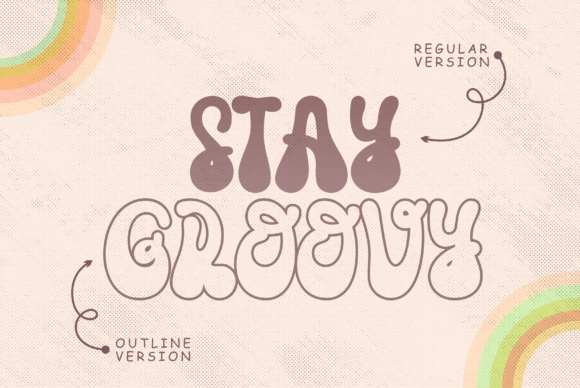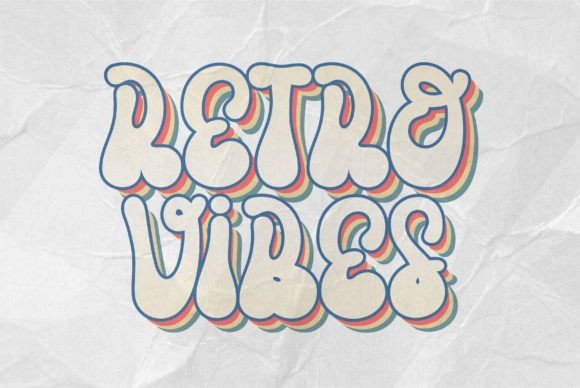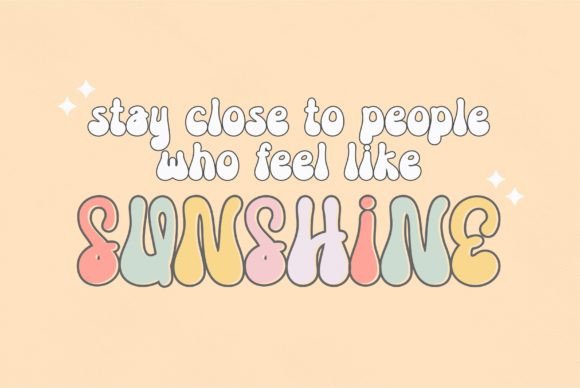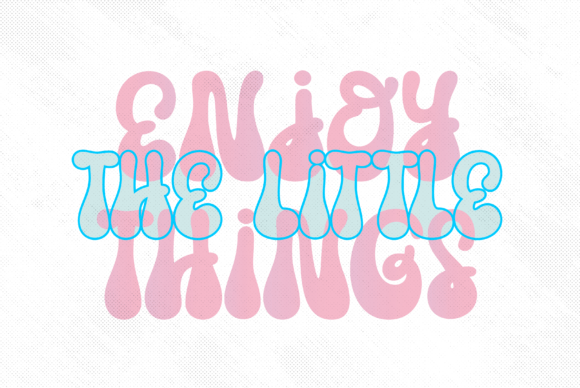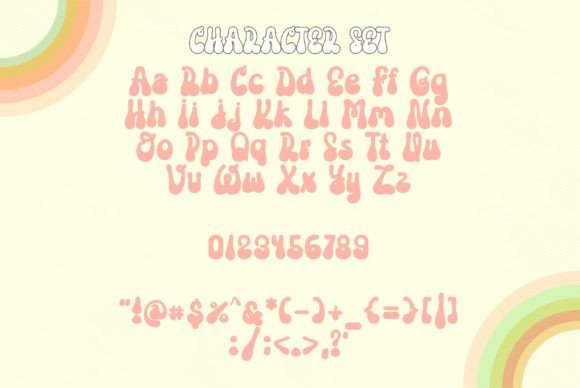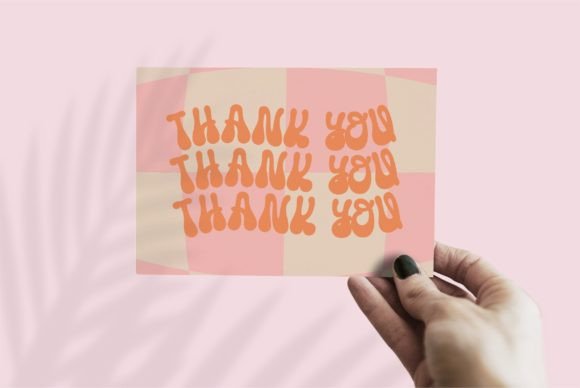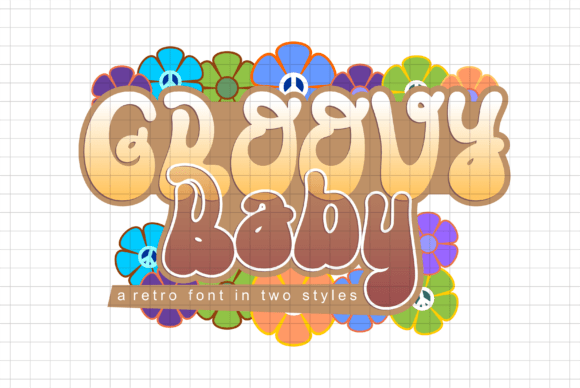
Groovy Baby Font: The Ultimate Retro-Inspired Typeface for Your Creative Projects
Are you looking for a font that embodies the fun, playful, and energetic vibe of the 1960s and 1970s? Look no further than the Groovy Baby font! This bold, retro-inspired typeface is perfect for designers and crafters who want to add a touch of nostalgia and whimsy to their projects. In this article, we’ll dive into the world of Groovy Baby font, exploring its unique features, uses, and benefits.
A Retro-Inspired Masterpiece
Groovy Baby font is a masterful creation that draws inspiration from the vibrant aesthetics of the 1960s and 1970s. The font features melting, rounded, and funky letterforms that are sure to make your projects stand out. Each letter is carefully crafted to evoke the playful, carefree spirit of the era, making it perfect for designs that require a dash of personality and charm.
Key Features of Groovy Baby Font
So, what makes Groovy Baby font so special? Here are some of its key features:
- Bold and Playful: Groovy Baby font is a bold, attention-grabbing typeface that’s perfect for headlines, titles, and other design elements that need to make a statement.
- Retro-Inspired: The font’s retro aesthetic is reminiscent of the 1960s and 1970s, making it ideal for designs that require a nostalgic or vintage feel.
- Melting Letterforms: The font’s letterforms are melting and rounded, giving them a fun, playful appearance that’s sure to delight.
- Funky and Energetic: Groovy Baby font is full of energy and personality, making it perfect for designs that need to radiate a fun, carefree vibe.
Uses for Groovy Baby Font
Groovy Baby font is incredibly versatile, making it suitable for a wide range of creative projects. Here are some ideas to get you started:
- Graphic Design: Use Groovy Baby font to create eye-catching posters, flyers, and brochures that need to grab attention.
- Crafting: Add a touch of personality to your crafting projects, such as handmade cards, gift tags, and scrapbook pages.
- Digital Design: Use Groovy Baby font to create engaging social media graphics, blog posts, and website headers.
- Branding: Create a unique and memorable brand identity with Groovy Baby font, perfect for businesses that want to stand out.
Benefits of Using Groovy Baby Font
So, why choose Groovy Baby font for your creative projects? Here are some benefits to consider:
- Instant Recognition: The font’s bold, playful design ensures instant recognition and attention-grabbing appeal.
- Unique Personality: Groovy Baby font adds a touch of personality and whimsy to your designs, setting them apart from the crowd.
- High-Quality: Groovy Baby font is a high-quality typeface, carefully crafted to ensure crisp, clear rendering at any size.
In conclusion, Groovy Baby font is a fantastic addition to any designer’s or crafter’s toolkit. Its bold, retro-inspired design, melting letterforms, and funky personality make it perfect for projects that need to stand out and radiate energy. Whether you’re working on a graphic design project, crafting handmade goodies, or creating digital content, Groovy Baby font is sure to bring a touch of nostalgia and whimsy to your work. So why not give it a try and see the groovy magic happen?